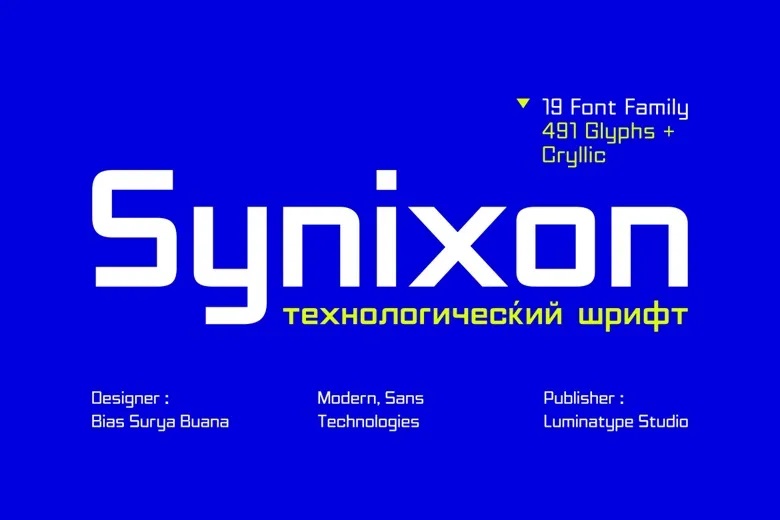
Synixon Font
Synixon is a contemporary technological sans serif font created by Luminatype Studio and designed for those who want clarity, power and precision in every letterform. Designed with a forward thinking aesthetic, Synixon offers a sleek and highly functional visual tone that uplifts any contemporary design. This advanced type family includes 19 weights from Thin to Black with corresponding Italic styles from Thin-Black.
Synixon has the added bonus of Cyrillic support as well as an expansive set of 491 glyphs, enough to ensure widespread versatility and global communication. Built on a concept of simplicity, strength, and modern sharpness, Synixon provides superb legibility even at small sizes – ideal for clean interfaces and high-tech visual environments. Its refined geometric construction and confident structure give it a particular presence without losing readability or balance.
Perfectly suited for Branding, Brand Identity, Logos, Websites, UI/UX, Editorial layouts and modern design needs as a whole, Synixon adapts with ease to the minimalistic and futuristic. Choose Synixon and add a bold, intelligent and innovative character to your next project — a font designed to have your design impossible to ignore.
Synixon Sans Serif Font